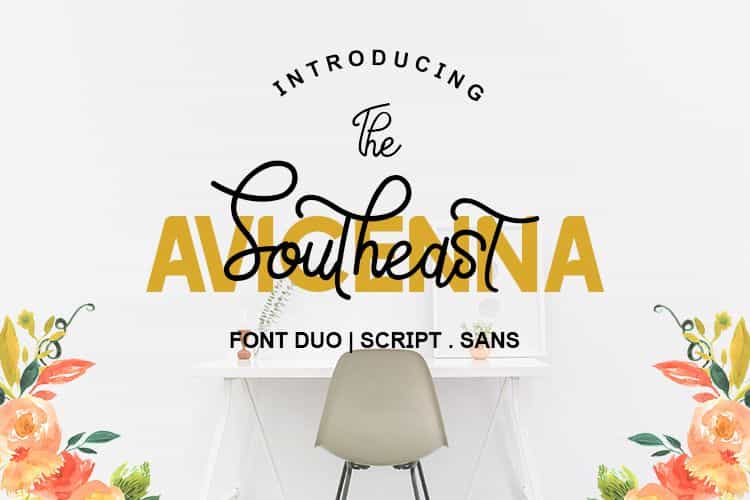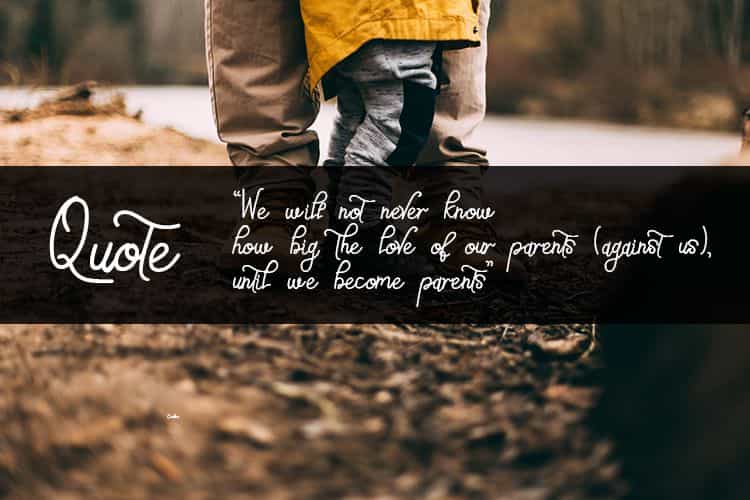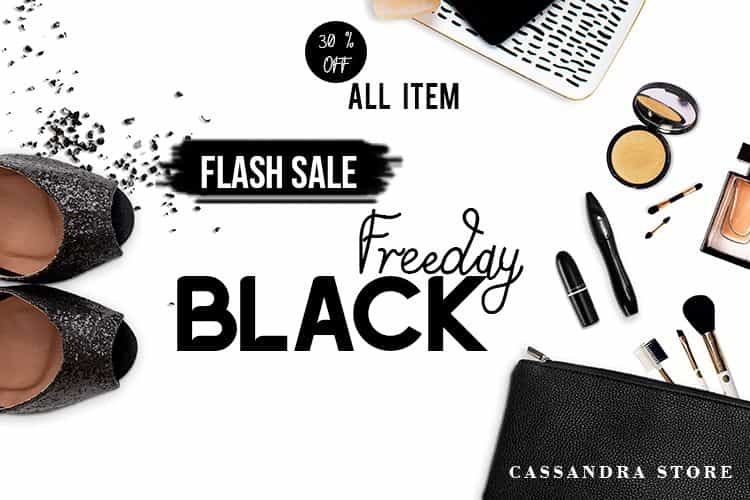
Discover Southeast Font Duo, part of the Sans Serif Handwritten collection—a versatile and unique font perfect for adding a personal touch to your projects. Download it for free and enjoy crafting designs with style, from invitations to social media posts. This font is available exclusively for personal use, giving you the freedom to create without limits. Unlock your creativity with Southeast Font Duo today!
Hello world..!! The Southeast – a great duo of the fonts, it has that natural handwritten touch which is perfect for signatures, business cards, social media and product brands among others. The font that is ideal for greeting cards, branding, blogging, social media, packaging prints and others.